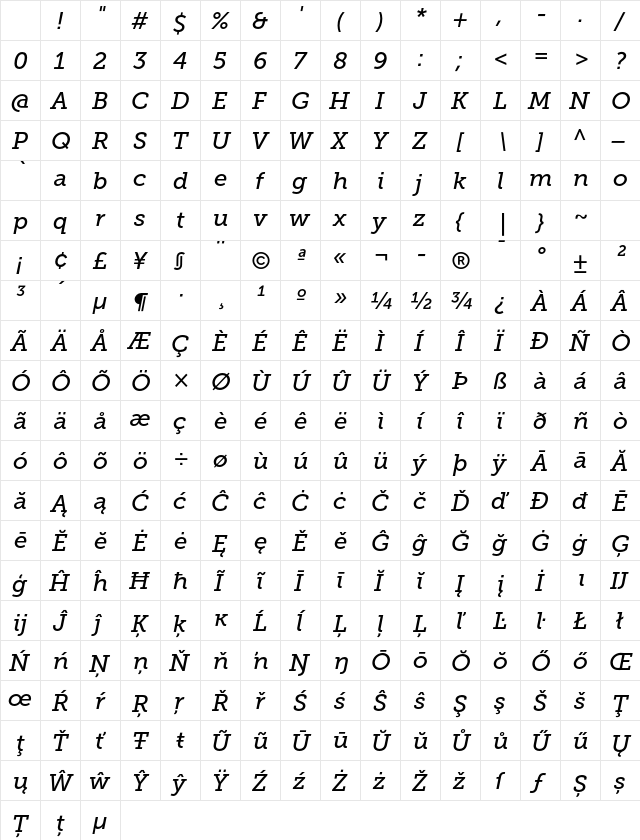
Complete Museo Slab 500 Italic glyph index. Displaying only characters natively supported by Museo Slab 500 Italic font.
Museo Slab features prominent, blocky serifs that give it a confident, grounded presence - equally at home in editorial settings and bold branding work. The slanted form adds forward momentum and visual energy.
Pro Tip: Use Museo Slab for headlines and subheadings where its slab serifs can make an impression. It also holds up well in mid-size body copy thanks to its sturdy construction.